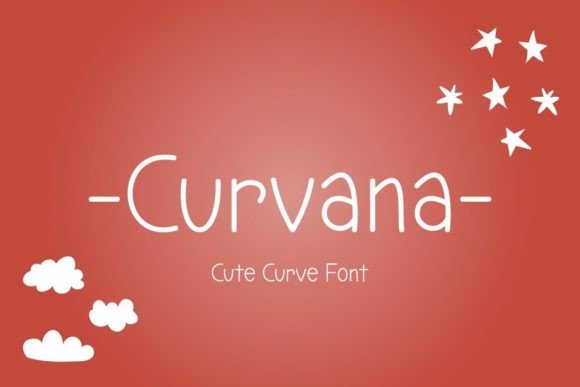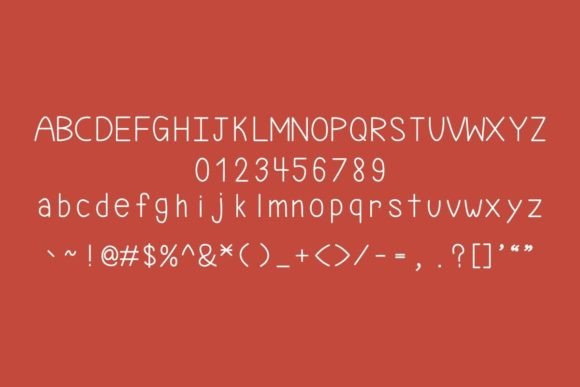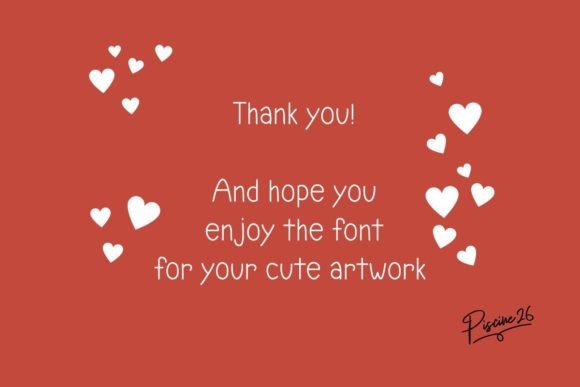
Curnava Font
About Curnava Font
“Curnava” is a charming handwritten font with a bit of curve and simplicity. The font’s cute and playful style makes it particularly suitable for projects related to kids. Its lively and whimsical design adds a delightful touch to creative artwork, making it a great choice for various applications.
Consider using “Curnava” for items such as children’s books, educational materials, playful designs, or any project where you want to infuse a sense of liveliness and fun. Its simplicity ensures readability, making it suitable for both digital and print applications.
Feel free to explore the versatility of “Curnava” in your creative endeavors, making it a go-to choice for projects that require a touch of cuteness and charm. Whether you’re designing posters, invitations, or any other kid-centric content, this font can contribute to the overall playful and joyful atmosphere.